2 Google Fonts Similar to Effra
Effra is a sans-serif font that was inspired by Caslon Junior. It features clean lines with a modern, yet friendly look.
Effra is a difficult font to match because it looks like handwriting. So finding a font similar to this was hard.
The good news is that after digging through the Google Font library, I was able to find a few good alternatives.
Quick disclaimer, no free font alternative will replace the actual font itself. Instead, these are fonts that share a similar look and feel. Anyone of these fonts could be used if your project is on a budget.
What Google Fonts are Similar to Effra?
The most similar looking fonts to Effra available in the Google Fonts library are:
- Roboto
- Rubik
Either one of these fonts would make for a decent alternative.
So let's cover their differences and similarities.
Roboto
Roboto is a very popular sans-serif font that is used all throughout the web.
It does a good job matching the majority of the letters in Effra, but comes with its differences.
The main difference in the lowercase is going to be in the "q", "g", and "b". Any letter that has a rounded end has a little dip in Roboto. While in Effra, it removes that completely.
Another main difference in both uppercase and lowercase is that any rounded letter is more oval shape in Roboto. However in Effra, they are almost perfectly rounded.
Go ahead and compare below.
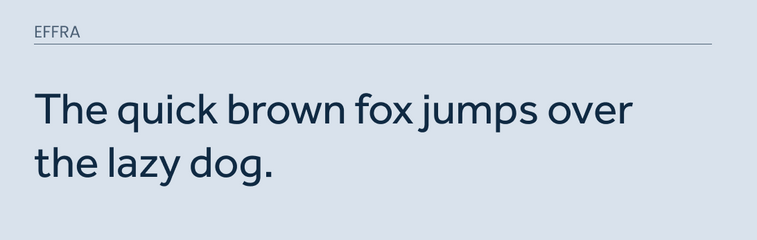
Rubik
Rubik is another good font alternative because it is easy to read and is playful.
It does a good job matching most of the letters in lowercase as well, but you will find the same differences in the "p", "b", and "q".
The uppercase has the same issue as Roboto where the letters are more oval than round. This is really noticable in the "Q" and "O".
Take a look below.
Final Thoughts
Roboto or Rubik may be a good alternative to Effra. Although they don't match all the letters exactly, they do share a similar look and feel to each one.